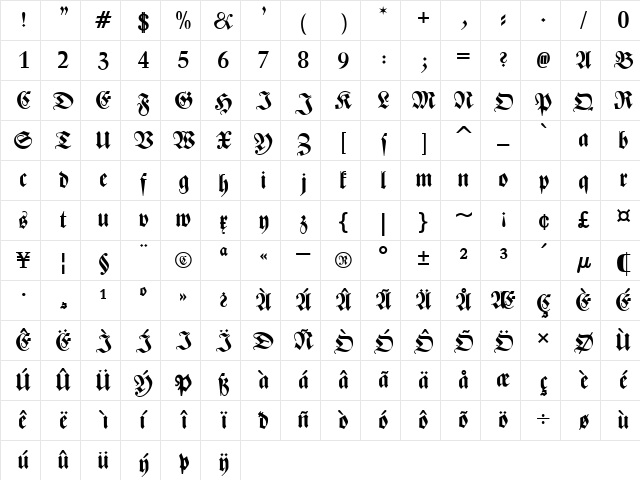
Zentenar Fraktur UNZ1L Bold Italic Font Preview
| Designer | Friedrich Hermann Ernst Schneidler |
Design Context for Zentenar Fraktur UNZ1L Typeface
Zentenar Fraktur UNZ1L draws on the rich tradition of blackletter calligraphy, with dense, angular strokes that evoke medieval manuscripts and old-world craftsmanship. Its italic angle brings a sense of urgency and motion to the letterforms. Its bold stroke weight gives it real presence on the page.
A natural fit for music packaging, gothic editorial design, and any project that needs historical weight.
Font Pairing: Pair with a clean neutral sans-serif for body copy to let Zentenar Fraktur UNZ1L's character lead without overwhelming the composition.
Pro Tip: Reserve Zentenar Fraktur UNZ1L for display and logo use — pair it with a clean sans-serif for body copy to prevent the composition from feeling oppressive.